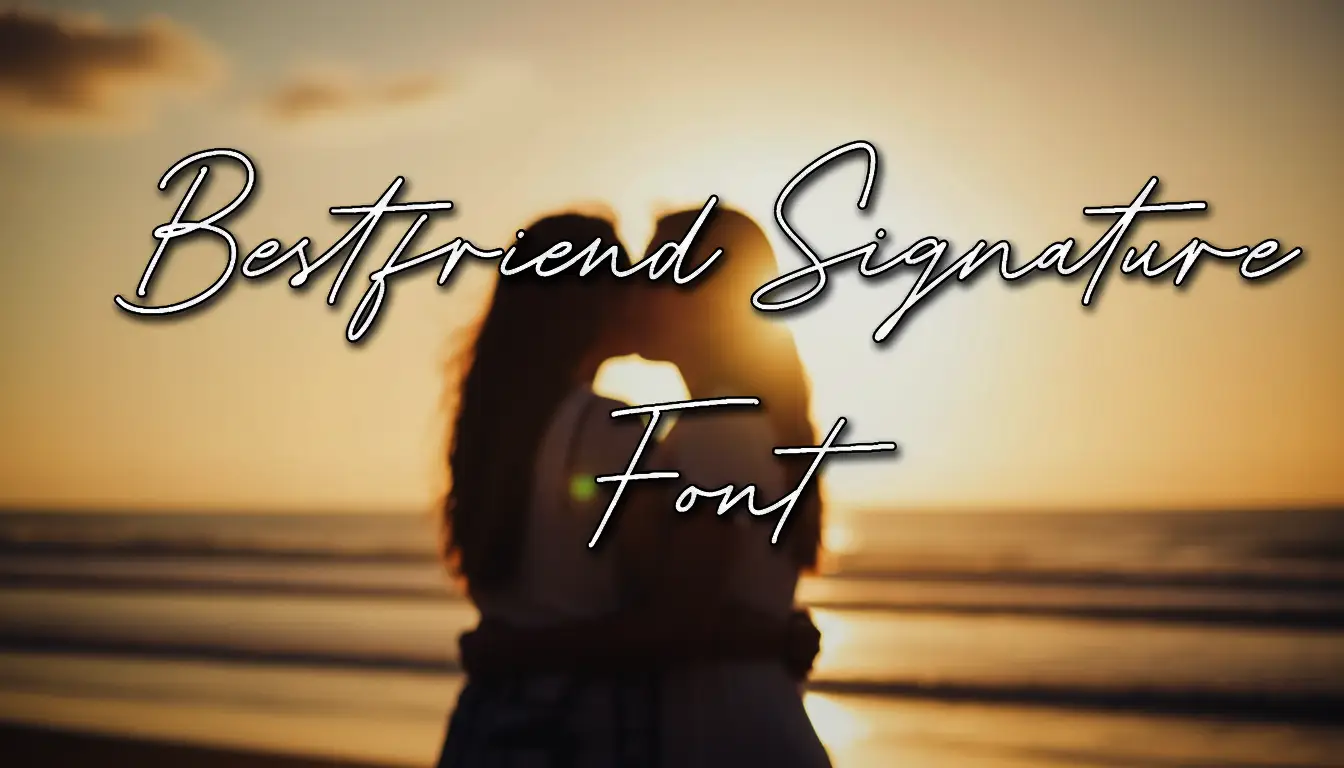
Bestfriend Signature Font
Bestfriend Signature
Bestfriend Signature is a handwritten font designed by Iqbal Pauji. It has a casual, written-with-a-pen look that makes designs feel personal. You can download it for free and test it with your own words in the preview above.
What You Can Type With Bestfriend Signature
You get every letter from A to Z in both cases and all the numbers from 0 to 9, which means Bestfriend Signature can handle full sentences, dates and prices. Common punctuation such as &, !, ? and @ is included as well. It also has the accented letters you need for Spanish, French, German, Portuguese and Italian.
Where Bestfriend Signature Works Best
Think of Bestfriend Signature for greeting cards, journal pages and friendly social posts. Set it a bit larger than you would a normal text font. Handwriting styles lose their charm once they get too small to read comfortably.
Does Bestfriend Signature support accented letters?
Yes. Bestfriend Signature includes the accented letters needed for Spanish, French, German, Portuguese and Italian, so it works for more than just English.